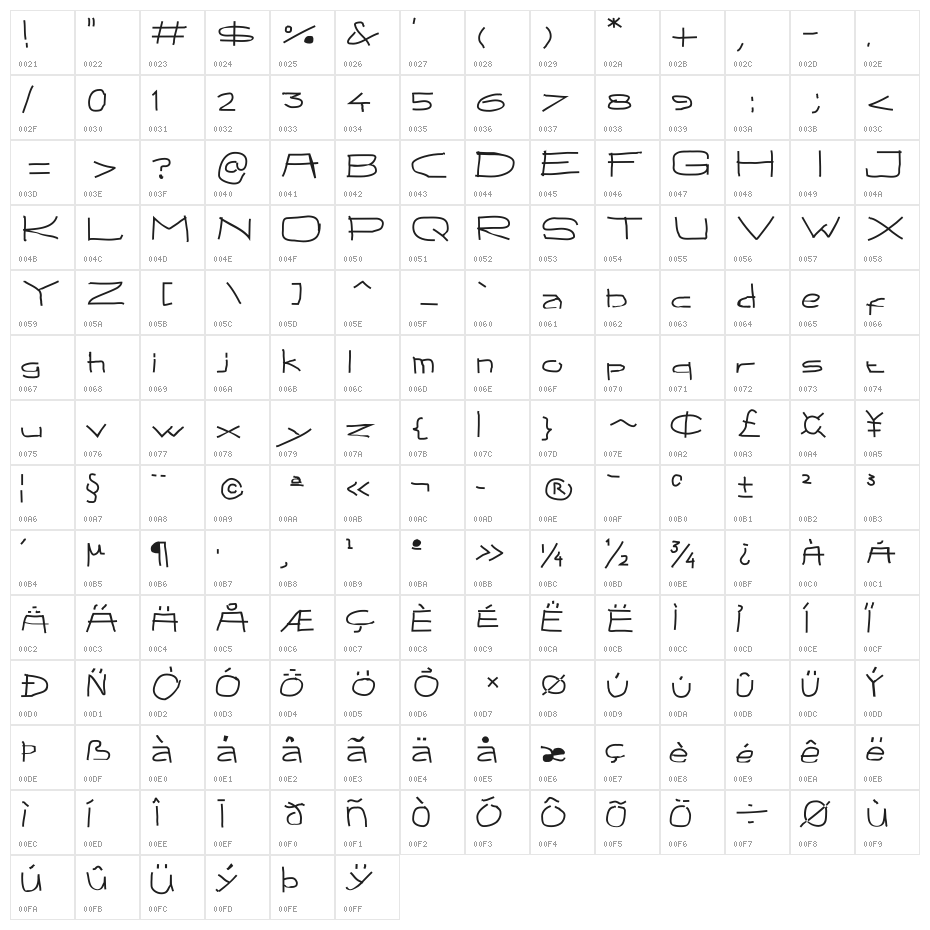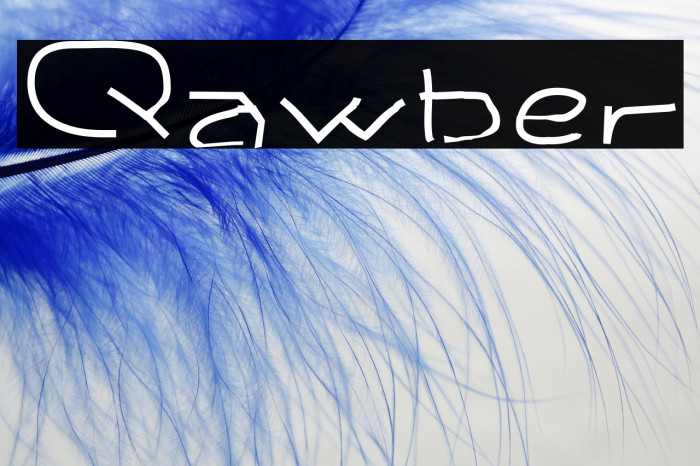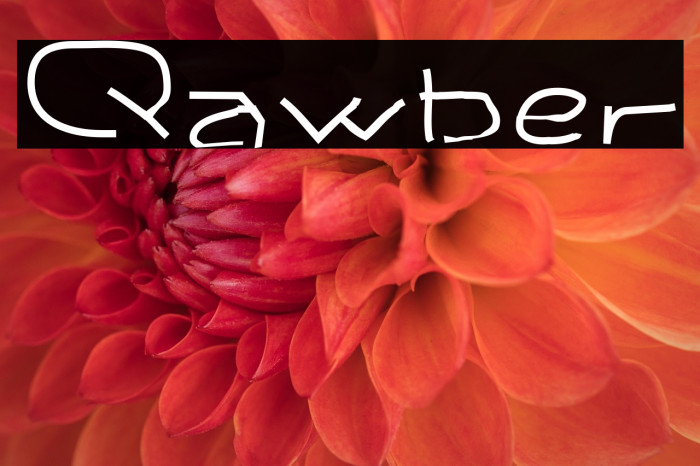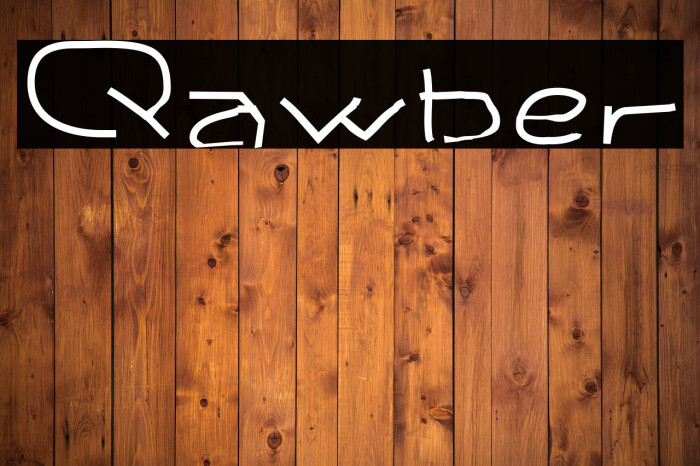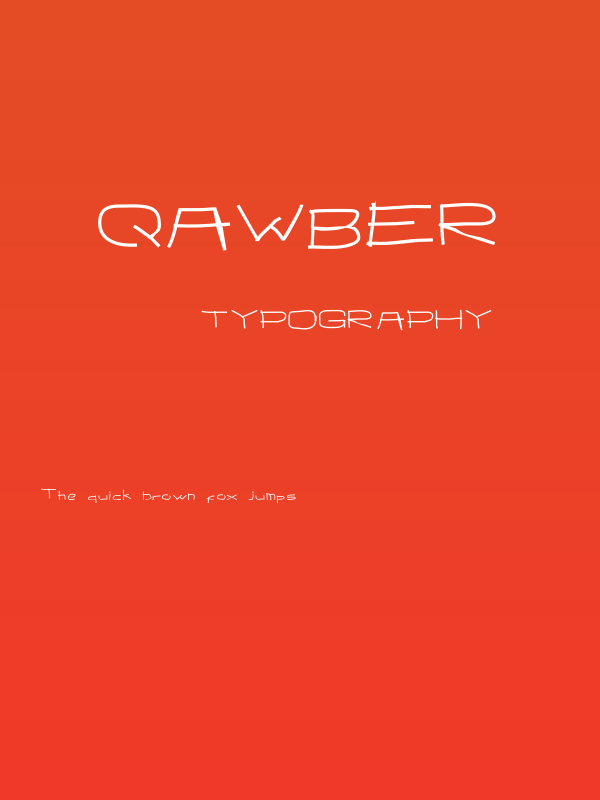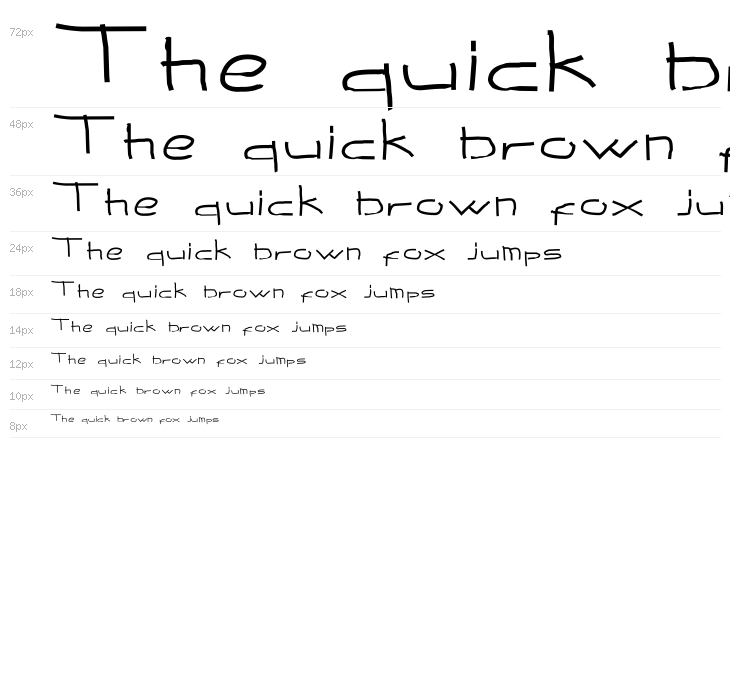
Qawber Font
| 全体的なスタイル | Casual, Artistic |
| 用途 | Headlines, Informal text, Creative projects |
| おすすめプロジェクト | Ideal for greeting cards, children's books, creative posters, and informal branding. |